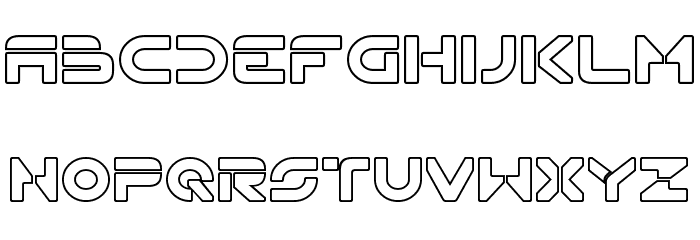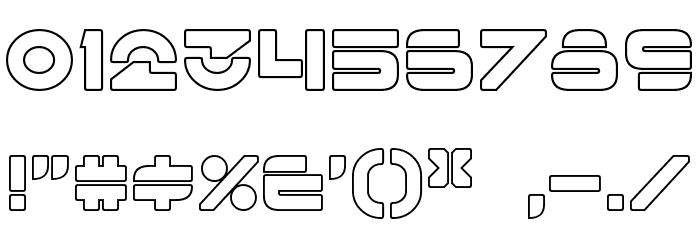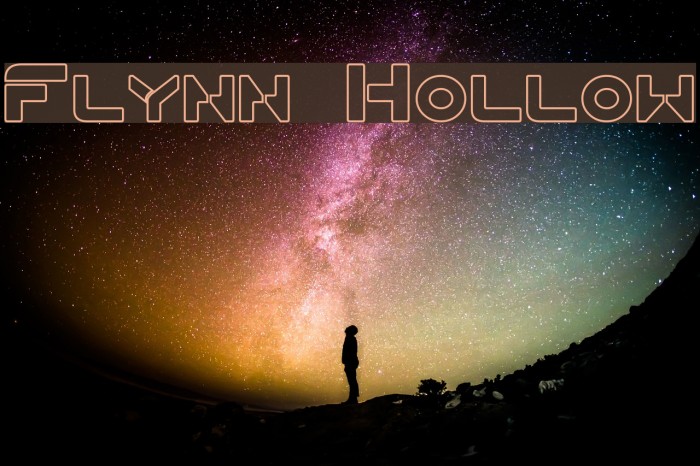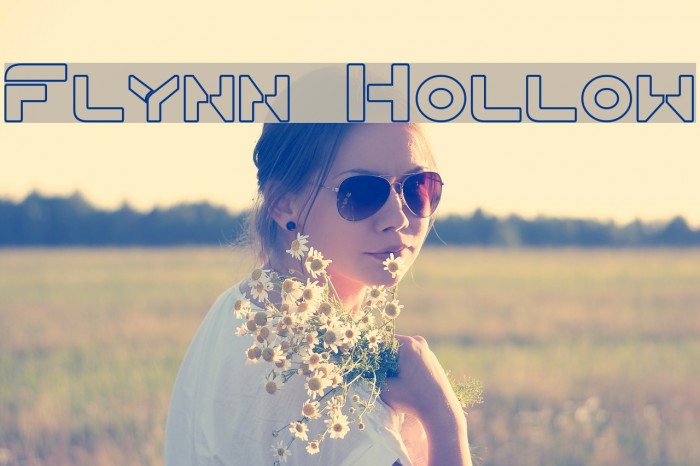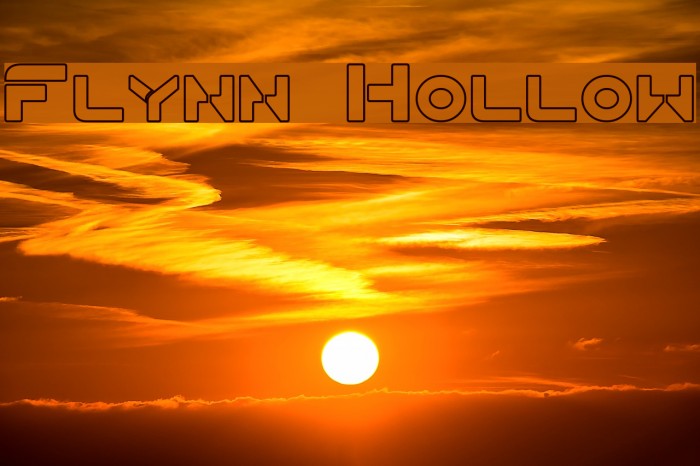
Flynn Hollow Font
This font features a futuristic and geometric design with hollow letterforms. The characters are constructed with clean, bold lines that form a distinct outline, giving it a modern and digital appearance. The uppercase and lowercase letters share a consistent style, maintaining uniformity across the alphabet. Numbers and special characters are designed to match the overall aesthetic, ensuring a cohesive look. The font's unique structure makes it suitable for projects that require a contemporary and tech-inspired feel.
A futuristic, geometric font with hollow letterforms and bold outlines.
- Proposed Projects: Ideal for technology branding, sci-fi movie posters, video game titles, and modern digital interfaces.